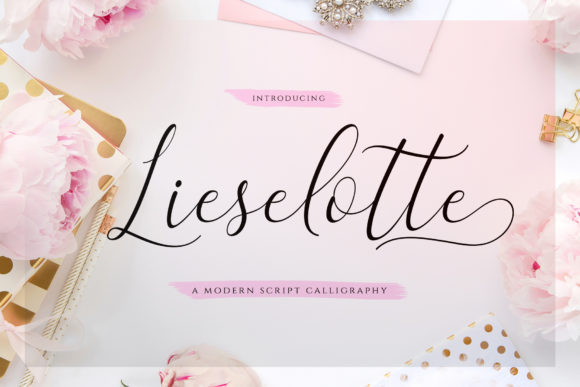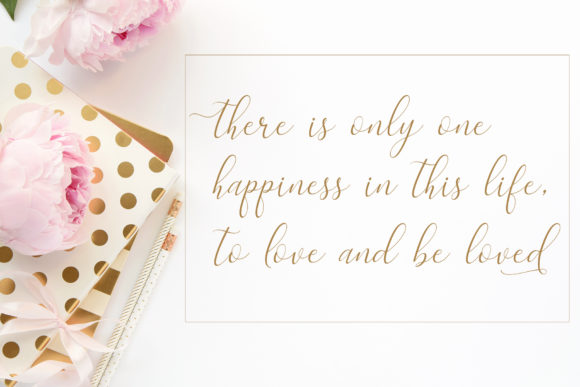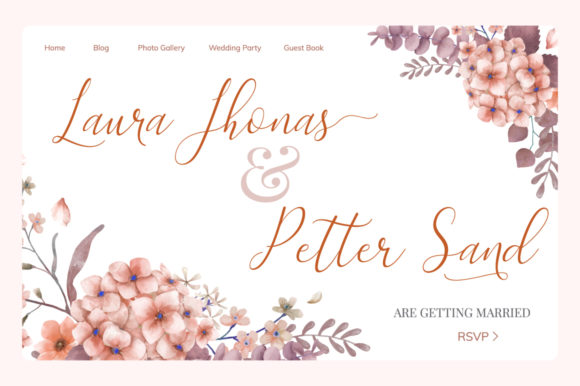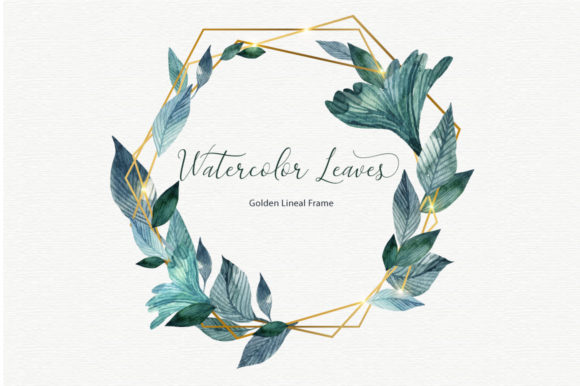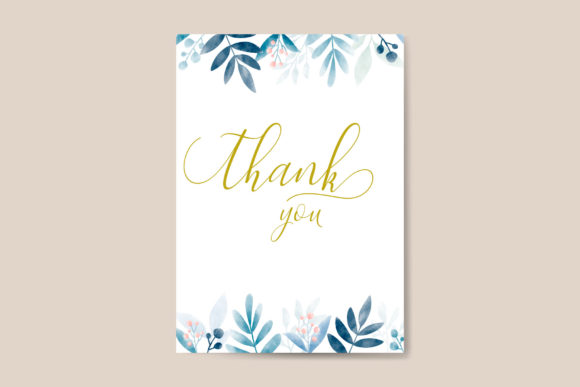
Lieselotte Script Font
About Lieselotte Script Font
The Lieselotte is an unique blend of classic and modern fonts. It has dancing letters with an imperfect style.
Its clean and simple style is perfect for weddings, invitations, escort cards, table numbers, headers, menus, display, logos, slider blog, custom address, stamps, packaging, and much more!